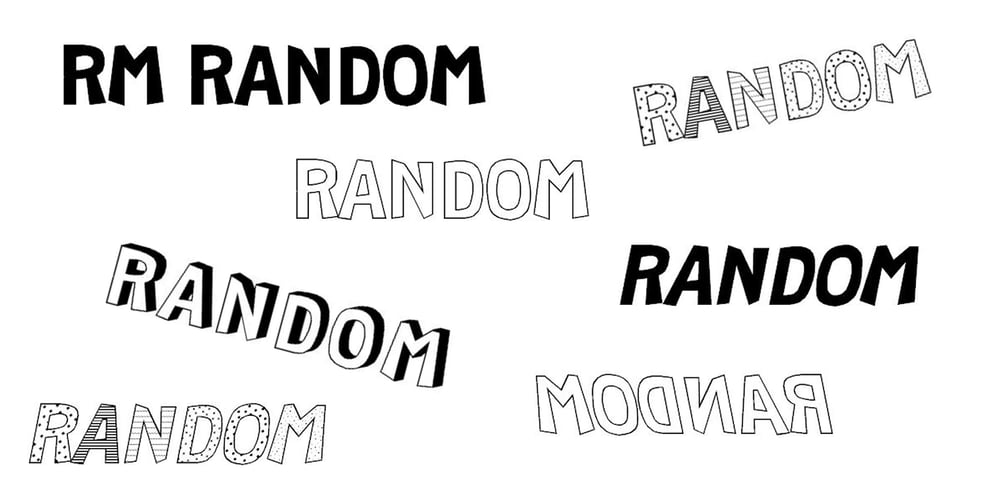
RM Random
RM Random font
RM Random Font Family was designed by Ray Meadows and published by Ray Meadows. RM Random contains 12 styles and family package options. A fun design, useful for many informal applications. Based on hand-drawn letters. Due to the nature of this design there may be a very slight lack of smoothness to the curves at extremely large point sizes (around 200 pt and above).